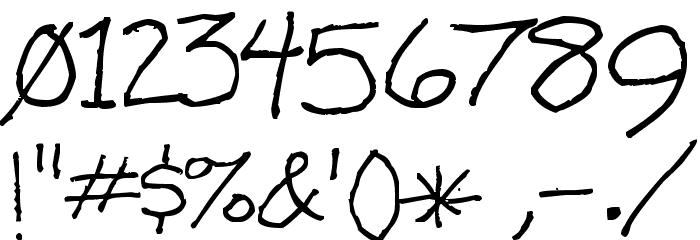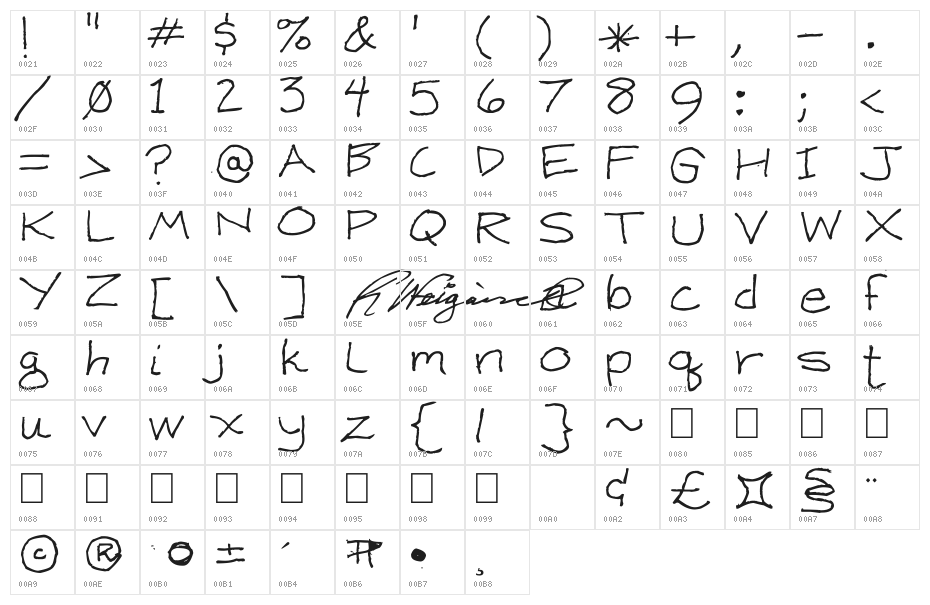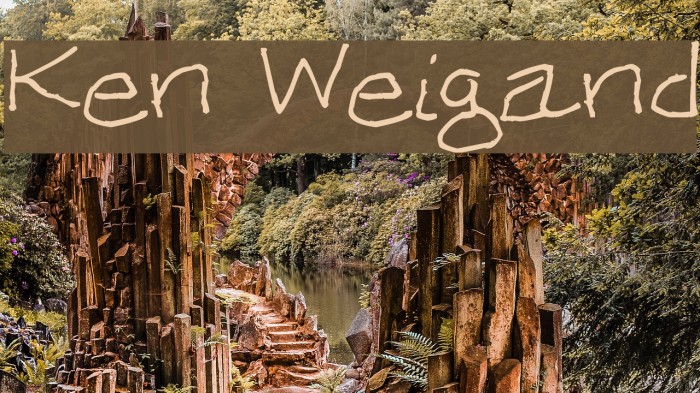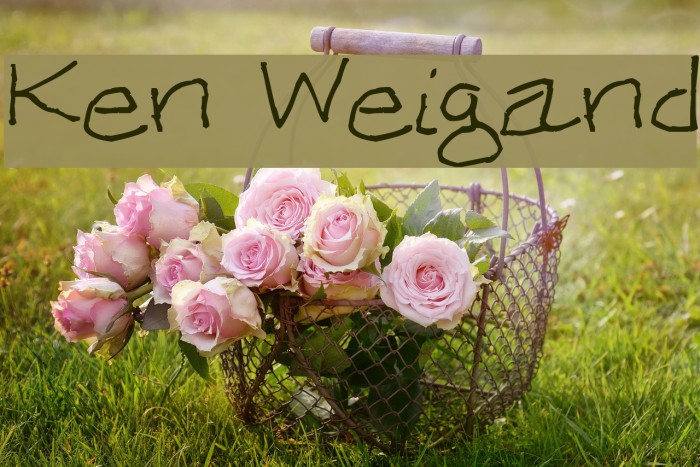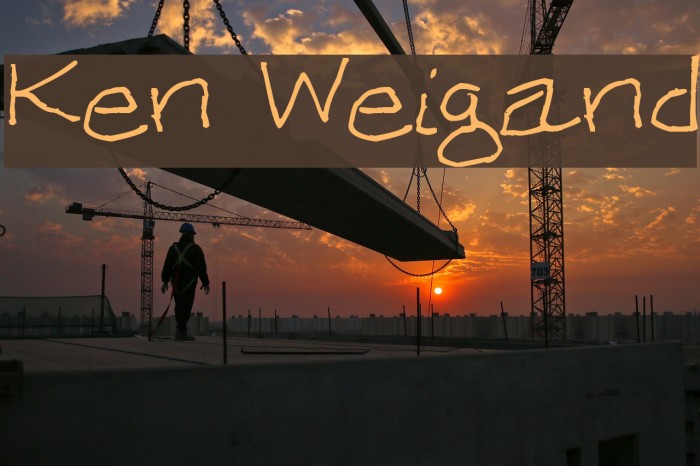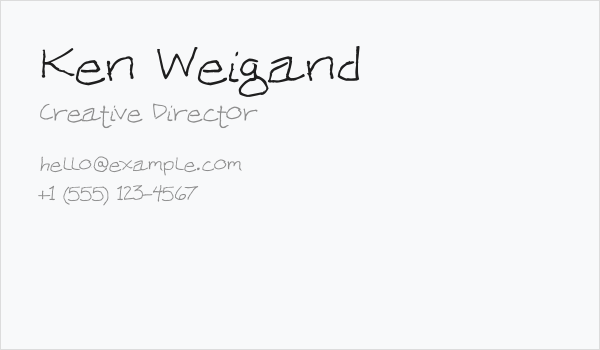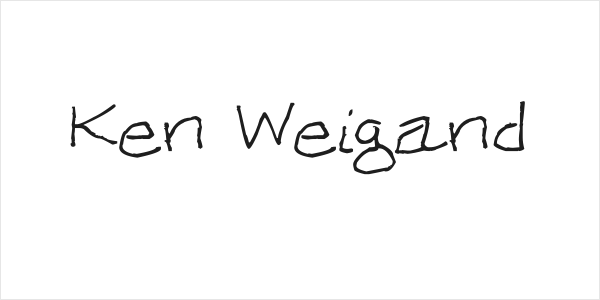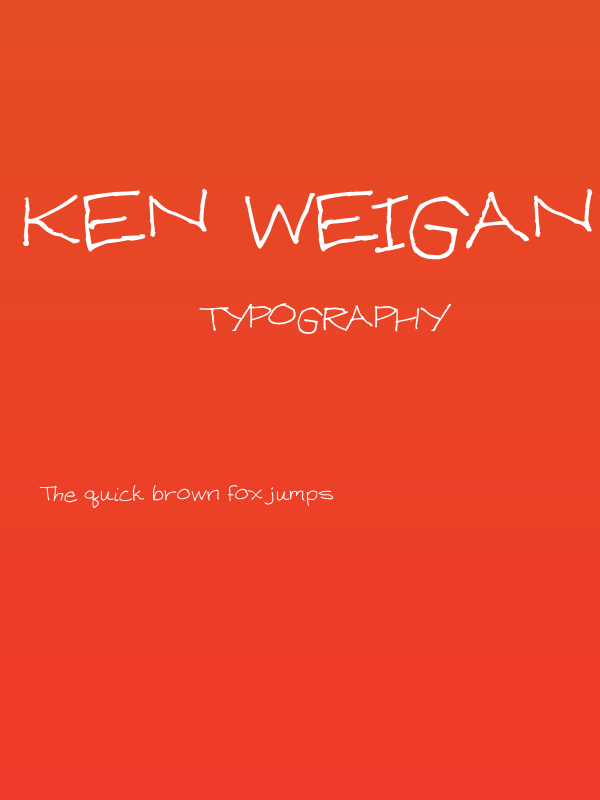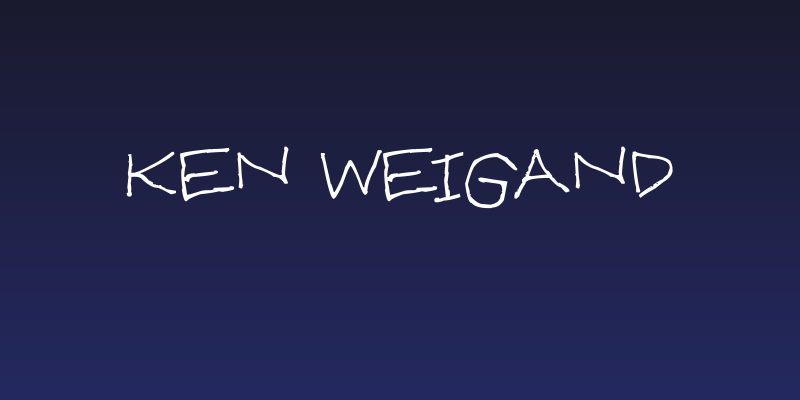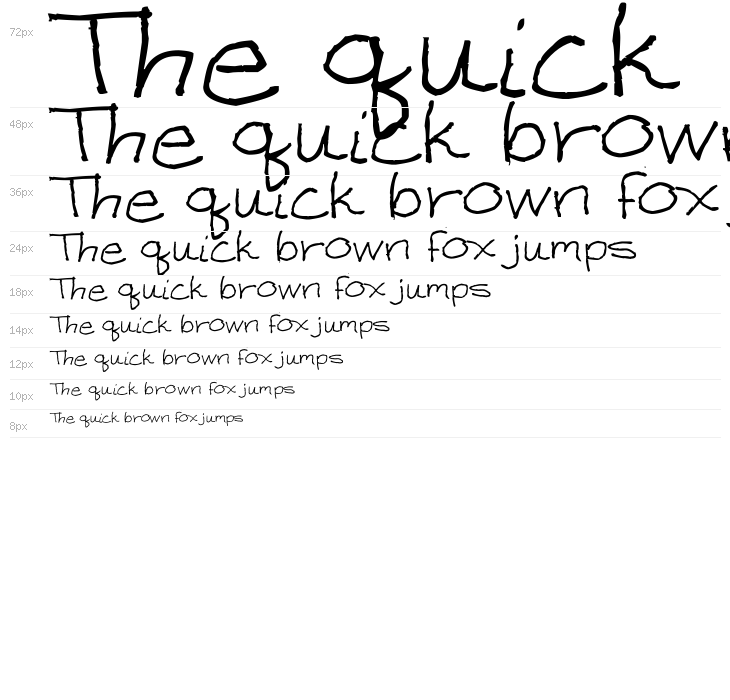
Ken Weigand Font
Ken Weigand Description
This font exhibits a playful and informal handwritten style, characterized by its uneven strokes and organic flow. The letters have a casual, almost sketch-like appearance, with varying line thickness that adds a dynamic and lively feel. The uppercase and lowercase letters maintain a consistent style, while the numerals and special characters integrate seamlessly with the overall design. The font's irregularities and imperfections give it a human touch, making it ideal for projects that require a personal or artistic flair.
| Overall Style | Casual, Artistic |
| Use Case | Headlines, Creative projects, Informal communications |
| Proposed Projects | Ideal for greeting cards, personal invitations, children's book illustrations, and creative branding projects. |